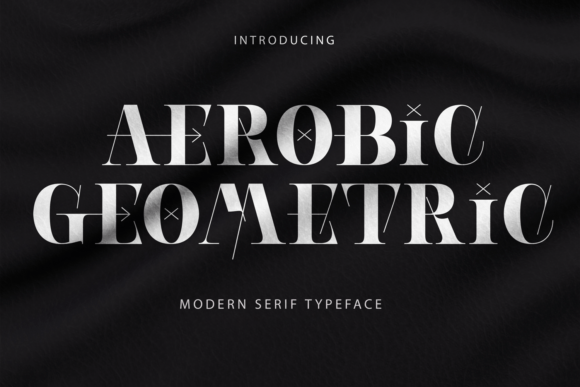
The Designer’s Delight: Aerobic Geometric Font
I still remember the frustration of working on a project, hours spent searching for the perfect font, only to end up with a design that felt flat and uninspired. It was as if the font was suffocating my creativity. But then, I stumbled upon Aerobic Geometric, and it was love at first sight! 💕 This assertive, modern, and elegant serif font has been a game-changer for my designs, and I’m excited to share its awesomeness with you.
- ✅ Versatility: Aerobic Geometric’s style is incredibly versatile, perfect for a wide range of projects, from branding to advertising.
- 💫 Elegant and Modern: This font exudes sophistication and elegance, making it perfect for designs that require a touch of luxury.
- 🤔 Learning Curve: With so many glyphs and swashes available, it may take some time to get familiar with the font’s features.
- ⚠️ Overuse: As with any font, using Aerobic Geometric excessively can lead to a design that’s over-embellished.
The Story Behind Aerobic Geometric
Aerobic Geometric was designed with the intention of creating a font that’s both modern and elegant. The designer aimed to craft a font that would be versatile and adaptable to various design projects, from luxury branding to editorial design. With its PUA encoding and extensive range of glyphs and swashes, Aerobic Geometric has become a favorite among designers and crafters alike.
| Font Name | Aerobic Geometric Font |
| Author | 177Studio |
| Is Aerobic Geometric suitable for body text? | While Aerobic Geometric is an elegant font, it’s better suited for headings and titles. For body text, consider using a font with better readability. |